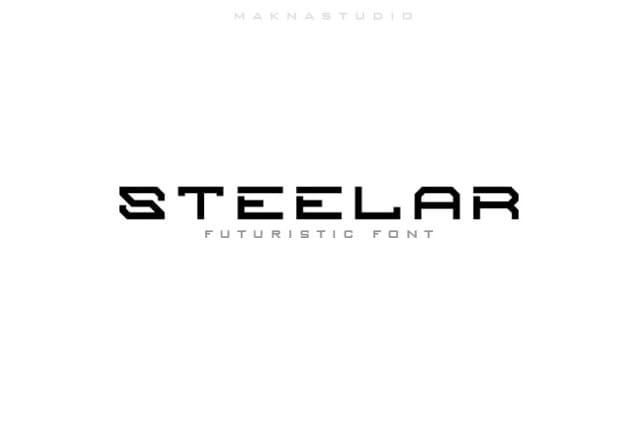
Steelar Futuristic Font
Steelar Futuristic Font, is a futuristic font that brings a cutting-edge vibe to your designs. Perfect for innovative projects and modern branding.